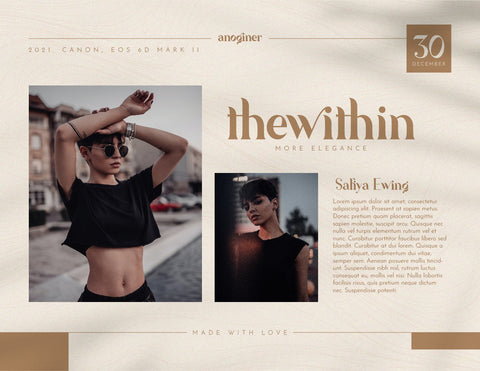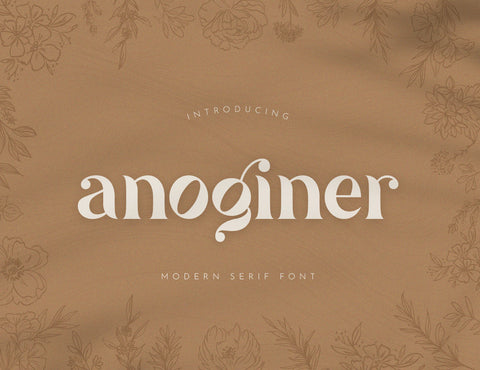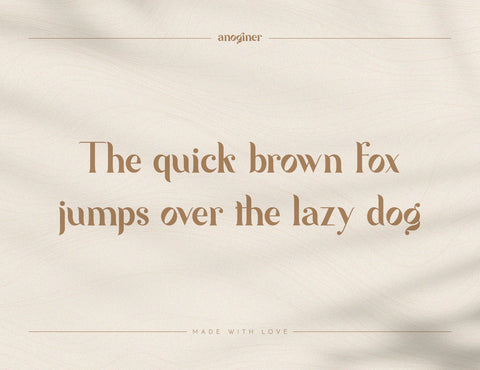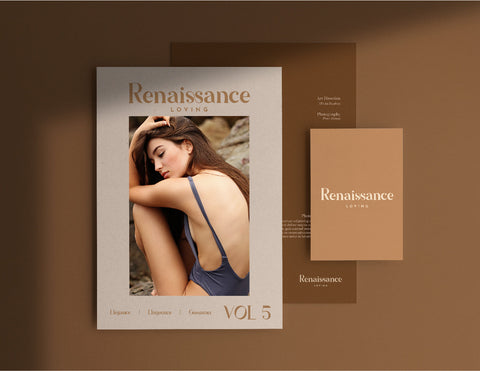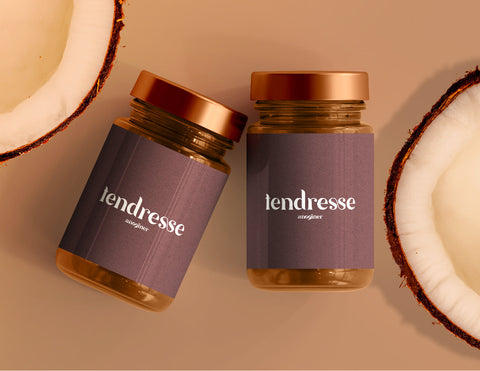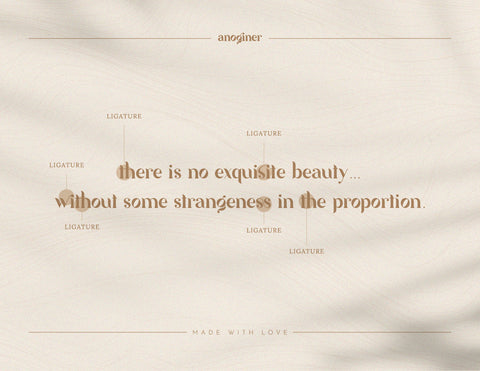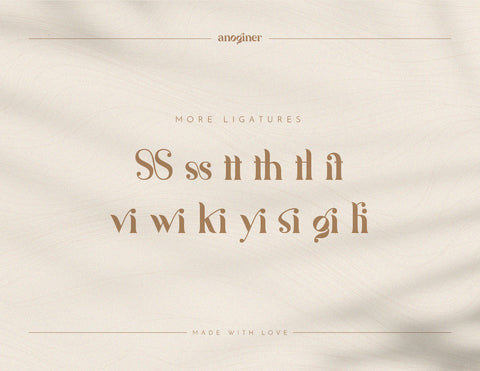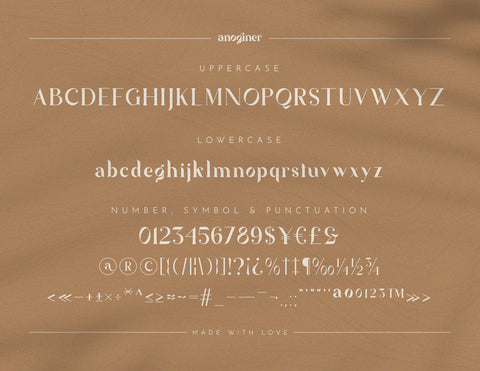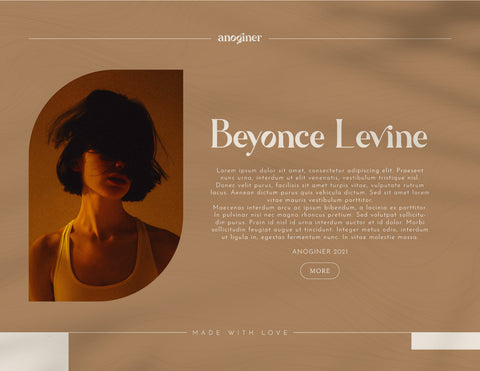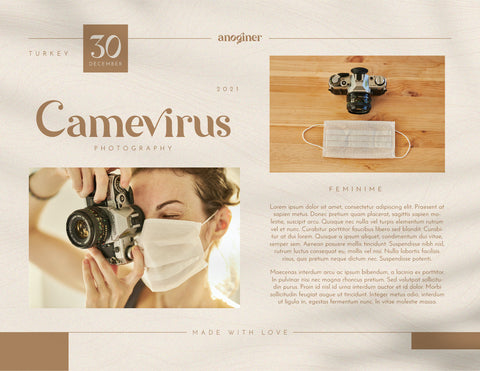
Anoginer Modern Serif Font
Anoginer is a elegant, chic, modern and stylish serif font. Has the characteristics of a thick and thin font with a beautiful curve so that it is comfortable to look at. It has good font emphasis so it is suitable for headings or headers. This font be perfect for branding, fashion, logos, social media, prints, website, magazine, calendar, card, lettering and many more. Perfect for branding or fashion editorial designs and showcases both masculine and feminine qualities.
With a unique style that no other font has. And will make your design look more creative and perfect. Comes with full uppercase, lowercase, numbers and punctuation + multilingual support, and several ligatures that support fonts so that the results are more beautiful. Easily accessible in programs such as photoshop, illustrator, word and more.